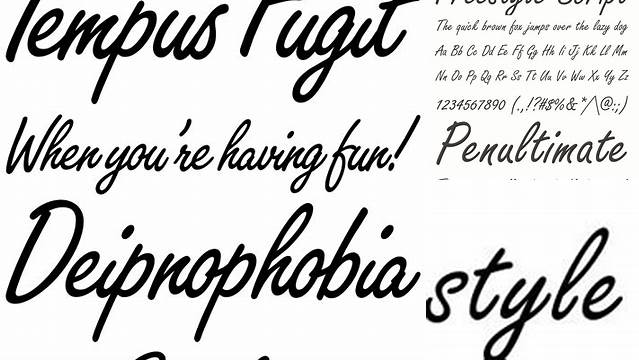
Introduction: Unleash Your Creativity with Freestyle Script Font on Mac
Hey guys! Are you ready to dive into the world of elegant and expressive typography? If you're a Mac user and a fan of calligraphy-inspired fonts, then you're in for a treat! In this article, we're going to explore the Freestyle Script font, a timeless classic that can add a touch of sophistication and personality to your designs. We'll cover everything from its history and characteristics to how you can download it for free on your Mac and use it in your projects. Whether you're a seasoned designer or just starting out, this guide will equip you with the knowledge and resources you need to master the Freestyle Script font. So, let's get started and unleash your creativity!
Freestyle Script is more than just a font; it's a statement. Its flowing lines and graceful curves evoke a sense of elegance and artistry, making it a popular choice for a wide range of design applications. From wedding invitations and greeting cards to logos and branding materials, Freestyle Script can elevate your work and leave a lasting impression. But what makes this font so special? Let's delve into its history and characteristics to understand its unique appeal.
Designed by the renowned British type designer Martin Wait in 1981, Freestyle Script captures the essence of handwritten calligraphy. Its strokes are fluid and dynamic, creating a sense of movement and energy. The font's distinctive loops and flourishes add a touch of whimsy and charm, while its overall legibility ensures that your message is clear and impactful. Freestyle Script is available in a single weight, which adds to its versatility. It can be used effectively in both headlines and body text, although it's often best suited for shorter blocks of text due to its decorative nature.
The beauty of Freestyle Script lies in its ability to convey emotion and personality. It's a font that speaks volumes, adding a human touch to your designs. Whether you're aiming for a classic, romantic, or contemporary feel, Freestyle Script can help you achieve your desired aesthetic. So, if you're looking for a font that's both stylish and versatile, look no further than Freestyle Script. In the following sections, we'll explore how to download it for free on your Mac and how to use it effectively in your projects.
Using Freestyle Script Font in Your Projects: Tips and Best Practices
Alright, guys, now that you've got Freestyle Script installed on your Mac, let's talk about how to use it effectively in your projects. This font is a fantastic tool, but like any design element, it's important to use it thoughtfully to achieve the best results. Freestyle Script's unique charm and flowing lines can add a touch of elegance to your work, but overusing it or using it in the wrong context can diminish its impact.
First and foremost, consider the tone and message of your project. Freestyle Script is a decorative font, which means it's best suited for designs that evoke a sense of creativity, artistry, or sophistication. Think wedding invitations, greeting cards, logos for creative businesses, and branding materials for luxury brands. It's less suitable for projects that require a more formal or professional tone, such as legal documents or technical reports. When used appropriately, Freestyle Script can add a touch of personality and flair to your designs. However, it's crucial to balance its decorative nature with legibility. While its flowing lines are beautiful, they can become difficult to read if used in large blocks of text or at small sizes. For body text, it's generally best to use a more straightforward and legible font, such as a serif or sans-serif typeface.
When using Freestyle Script, think about hierarchy and contrast. Use it sparingly to highlight key elements, such as headings, subheadings, or call-to-actions. Pairing it with a simpler font for body text will create a visual hierarchy and ensure that your message is clear and easy to read. Experiment with different font pairings to find combinations that complement each other. For example, you could pair Freestyle Script with a classic serif font like Times New Roman or a clean sans-serif font like Helvetica. Remember, the goal is to create a harmonious and balanced design that's both visually appealing and functional.
Another important tip is to pay attention to kerning and leading. Kerning refers to the spacing between individual letters, while leading refers to the spacing between lines of text. Freestyle Script's flowing lines can sometimes create uneven spacing, so it's important to adjust the kerning to ensure that the letters are evenly spaced and legible. Similarly, adjusting the leading can improve the readability of multi-line text. In design software like Adobe Photoshop or Illustrator, you can find kerning and leading settings in the Character panel. Experiment with different values to achieve the best visual appearance.
Finally, consider the color and background of your design. Freestyle Script works well with both light and dark backgrounds, but it's important to ensure that there's sufficient contrast between the font color and the background color. Avoid using colors that are too similar, as this can make the text difficult to read. If you're using Freestyle Script on a busy or textured background, consider adding a solid color overlay behind the text to improve legibility. By following these tips and best practices, you can use Freestyle Script font to create stunning designs that capture attention and convey your message effectively. Now, let's explore some common issues you might encounter and how to troubleshoot them.
Troubleshooting Common Issues with Freestyle Script Font
Okay, so you've downloaded Freestyle Script, installed it, and you're ready to go, but what happens if things don't quite go as planned? Don't worry, guys, it happens to the best of us! Let's troubleshoot some common issues you might encounter when using Freestyle Script font on your Mac and how to fix them.
One of the most common issues is that the font doesn't appear in your application's font list after you've installed it. This can be frustrating, but it's usually an easy fix. The first thing to try is restarting the application. Sometimes, applications need to be restarted to recognize newly installed fonts. Close the application completely and then reopen it. Check the font list again to see if Freestyle Script is now available. If restarting the application doesn't work, try restarting your Mac. This will clear the system's font cache and ensure that all applications recognize the newly installed font.
If you've restarted your Mac and the font still isn't appearing, the next step is to check Font Book. Open Font Book (you can find it in your Applications folder) and look for Freestyle Script in the font list. If you see the font listed but it's disabled, select it and click the "Enable" button in the toolbar. If the font is not listed in Font Book at all, it may not have been installed correctly. In this case, try reinstalling the font by double-clicking the font file and clicking the "Install Font" button in Font Book. Another issue you might encounter is that the font appears pixelated or blurry, especially at small sizes. This can happen if the font file is corrupted or if the application is not rendering the font correctly. To fix this, try downloading the font from a different source or reinstalling it from your original source. If the issue persists, try adjusting the font rendering settings in your application. Some applications have options for font smoothing or anti-aliasing, which can improve the appearance of fonts at small sizes.
Sometimes, Freestyle Script might not display correctly if it's not compatible with the application you're using. This is rare, but it can happen with older applications or applications that don't fully support OpenType fonts. If you suspect a compatibility issue, try using the font in a different application to see if it displays correctly. If it works in other applications, the issue is likely with the specific application you're using. In this case, you may need to update the application or find an alternative font. Another potential issue is font conflicts. If you have multiple versions of the same font installed on your Mac, this can cause conflicts and lead to display issues. To resolve font conflicts, open Font Book and look for duplicate fonts. If you find any, disable or remove the older versions to ensure that only the latest version is active.
By following these troubleshooting steps, you can resolve most common issues with Freestyle Script font and ensure that it displays correctly in your projects. Remember to always download fonts from reputable sources and keep your system and applications up to date to minimize potential problems. Now, let's wrap up with a conclusion.
Conclusion: Embrace the Elegance of Freestyle Script Font
So there you have it, guys! A comprehensive guide to Freestyle Script font, from its history and characteristics to how to download it for free on your Mac and use it effectively in your projects. We've also covered some common issues you might encounter and how to troubleshoot them. By now, you should have a solid understanding of this elegant and versatile font and how it can enhance your designs.
Freestyle Script is more than just a font; it's a tool for expressing your creativity and adding a touch of personality to your work. Whether you're designing wedding invitations, logos, or branding materials, Freestyle Script can help you create visually stunning and memorable designs. Its flowing lines and graceful curves evoke a sense of elegance and sophistication, making it a perfect choice for projects that require a touch of artistry.
Remember to use Freestyle Script thoughtfully and in the right context. While its decorative nature is a strength, it's important to balance it with legibility and hierarchy. Pair it with simpler fonts for body text and use it sparingly to highlight key elements. Pay attention to kerning and leading to ensure that the letters are evenly spaced and easy to read. And always consider the color and background of your design to create sufficient contrast and visual appeal.